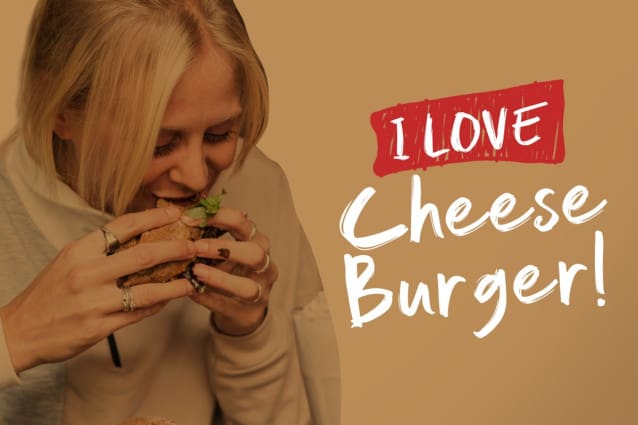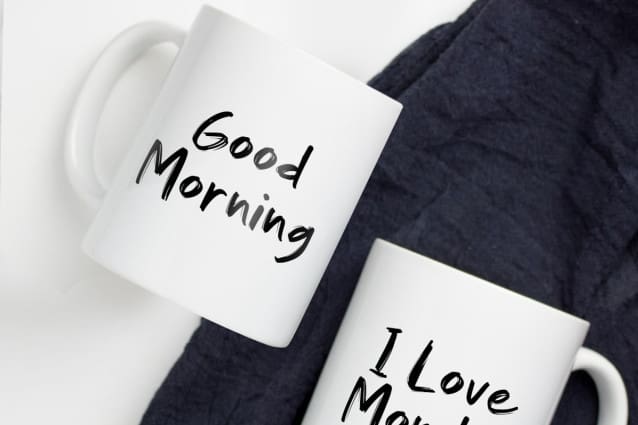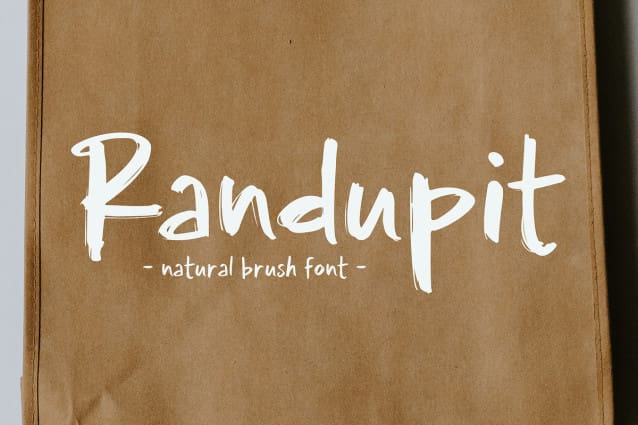
Randupit Brush Font
Randupit Brush Font – Natural Brush Font, sans serif with a natural rough dry brush strokes, and the stroke of hand quickly.
You can use and enjoy Randupit Brush, for anything from promotional material and signature, branding, fashion, photography, title, poster, social media, ad banner, book cover, packaging, handwritten quotes, greeting cards and advertising. You can create more easily with unique stroke to each letter and make it as if you wrote it yourself.
All fonts containing upper & lowercase with alternate characters, numerals, and a large range of punctuation.